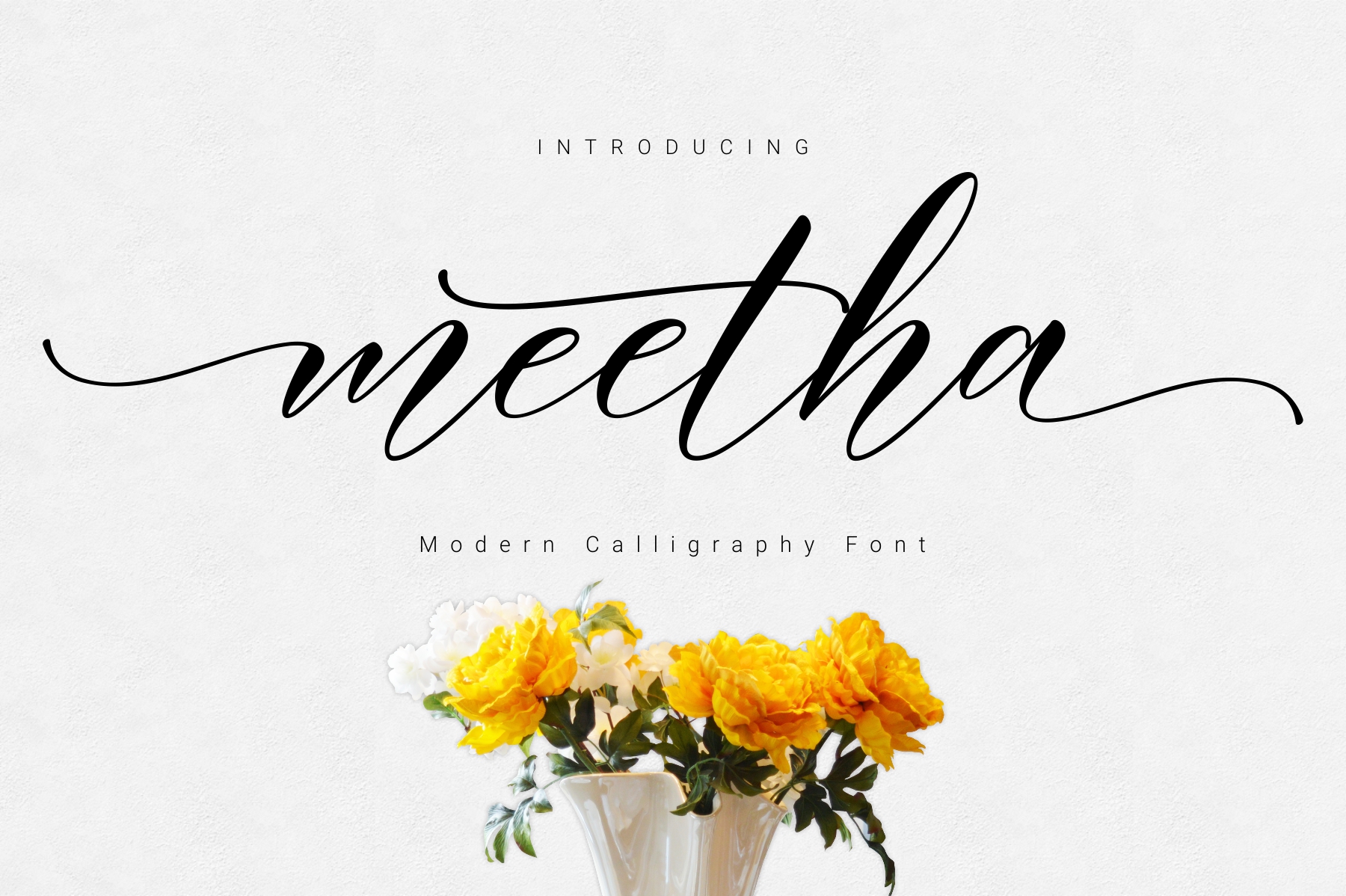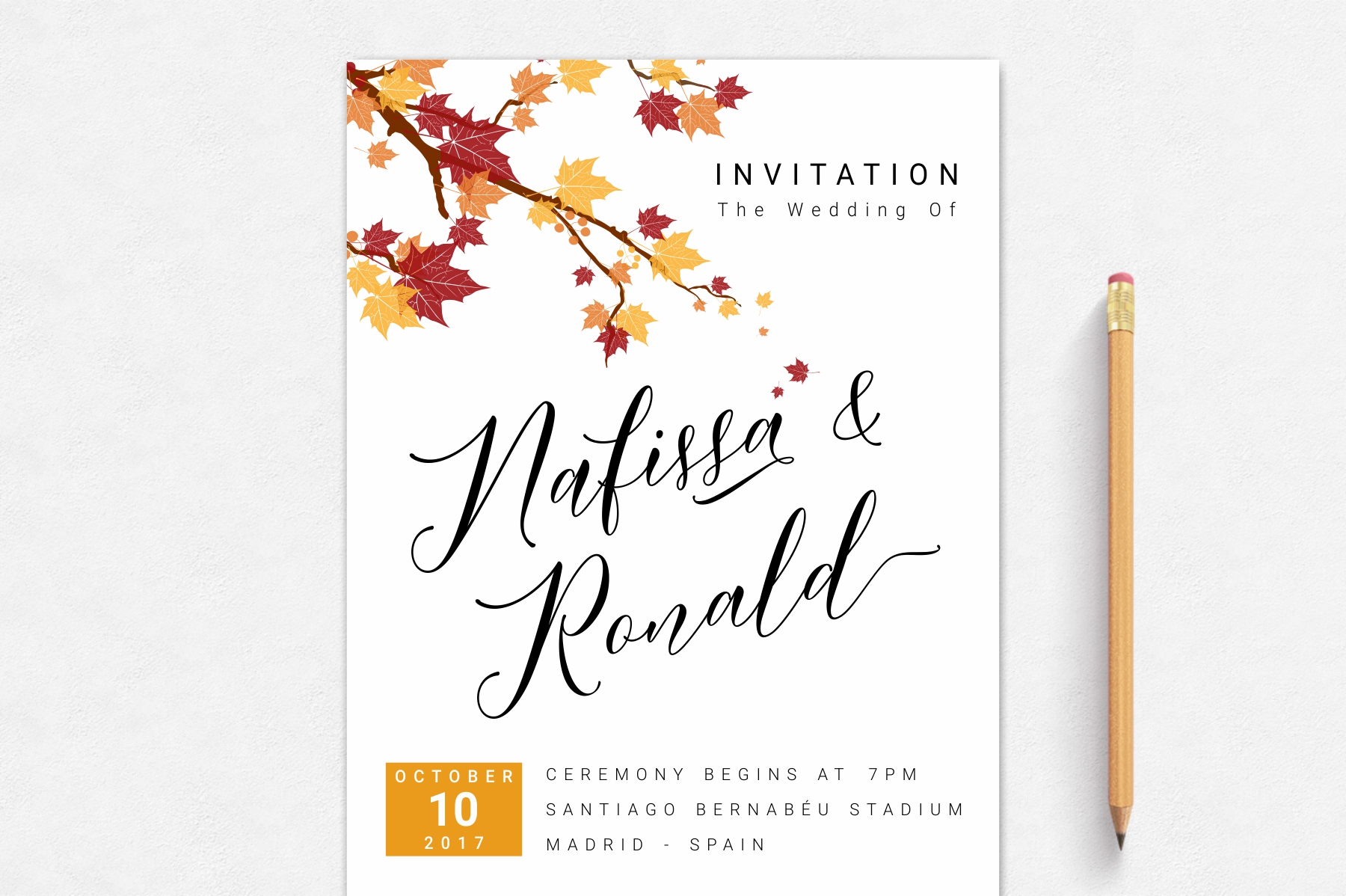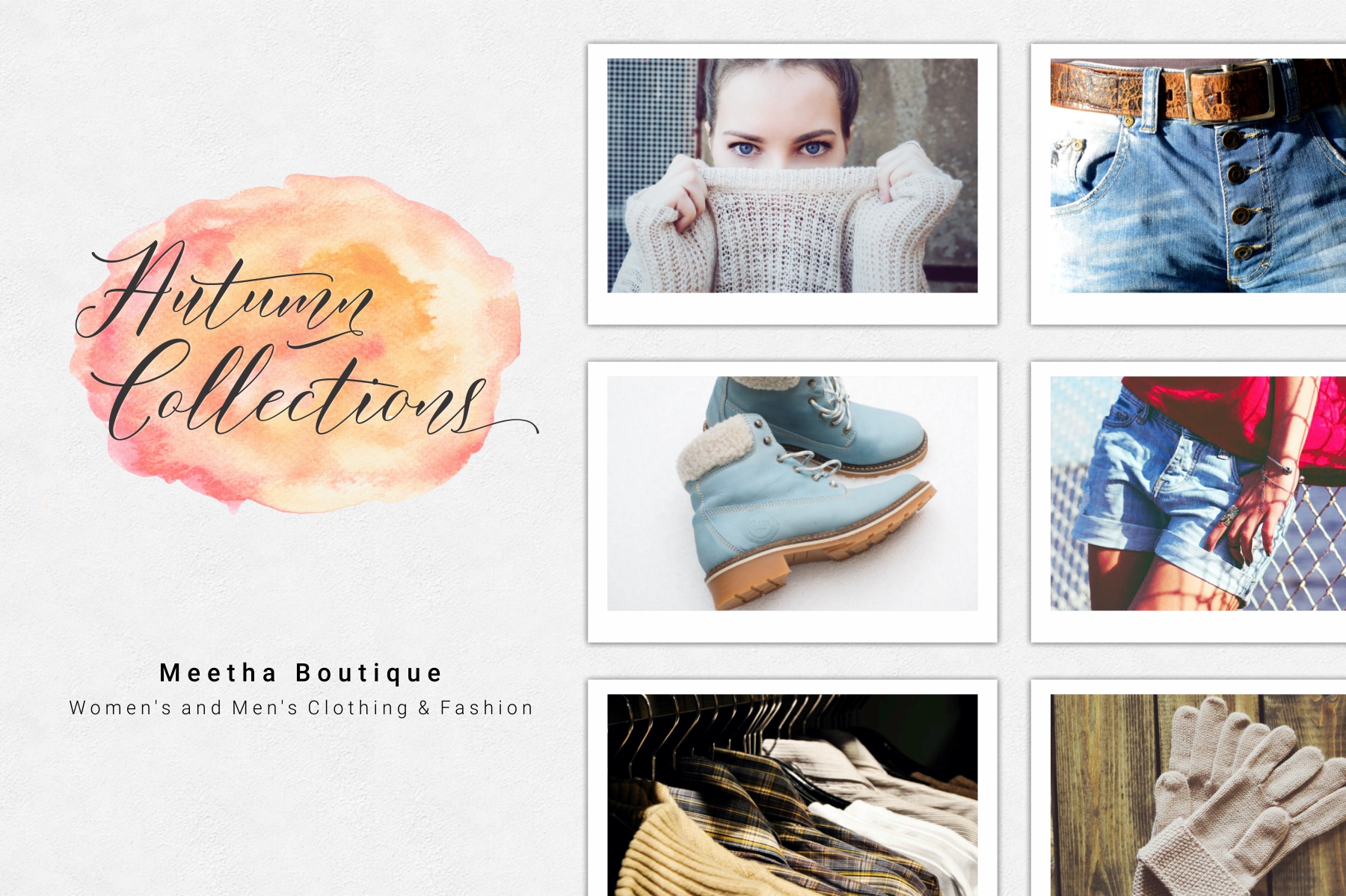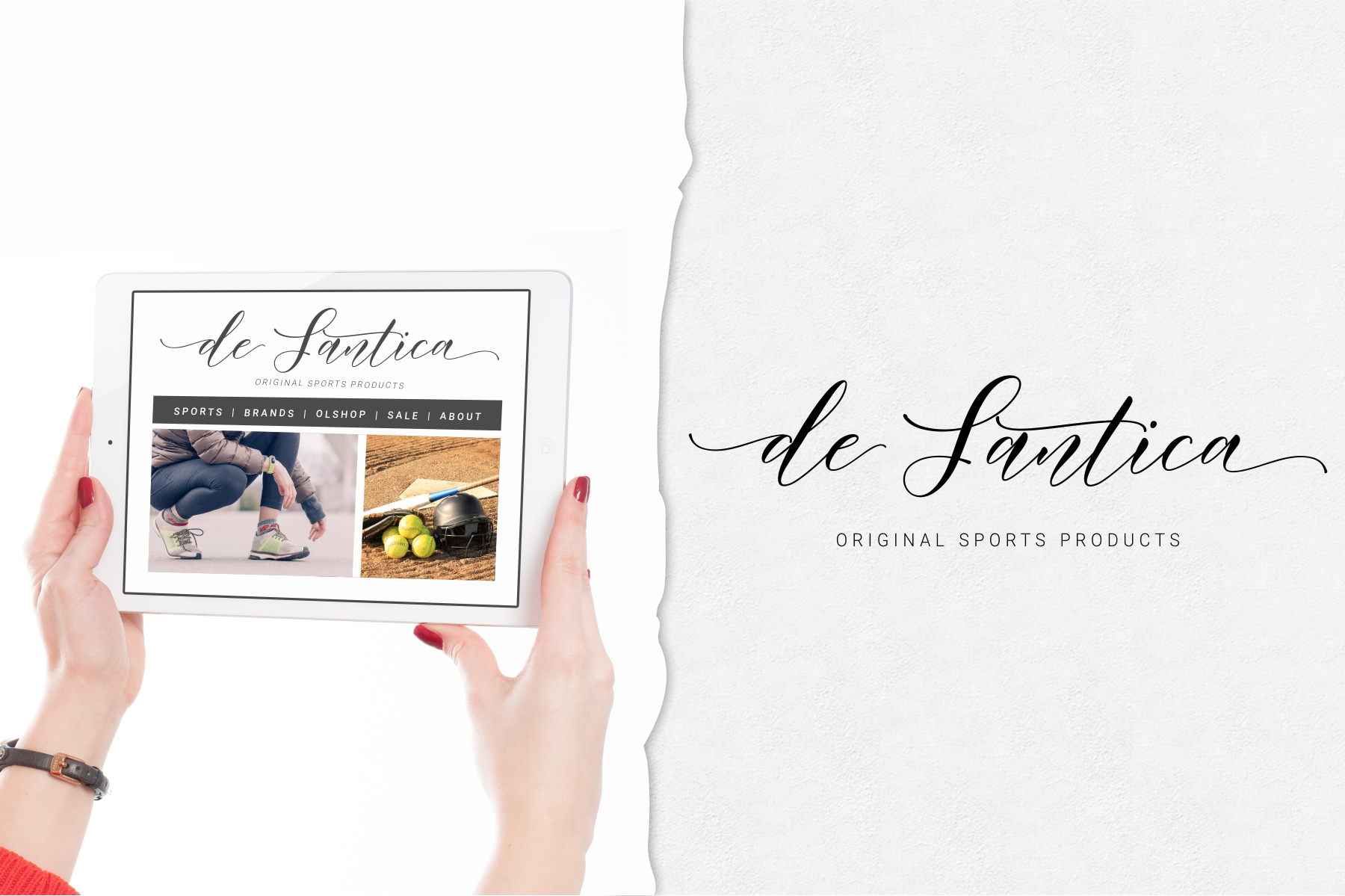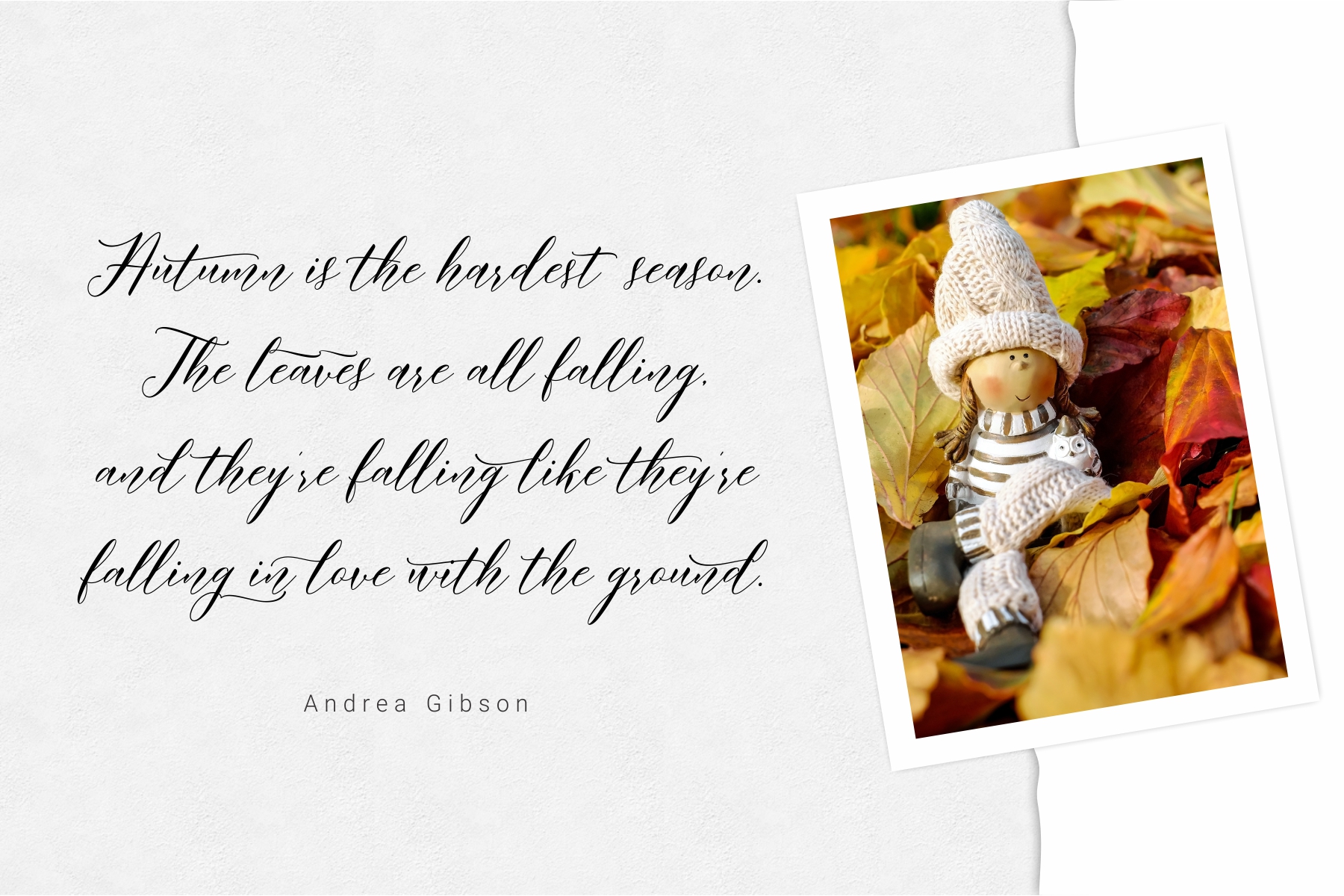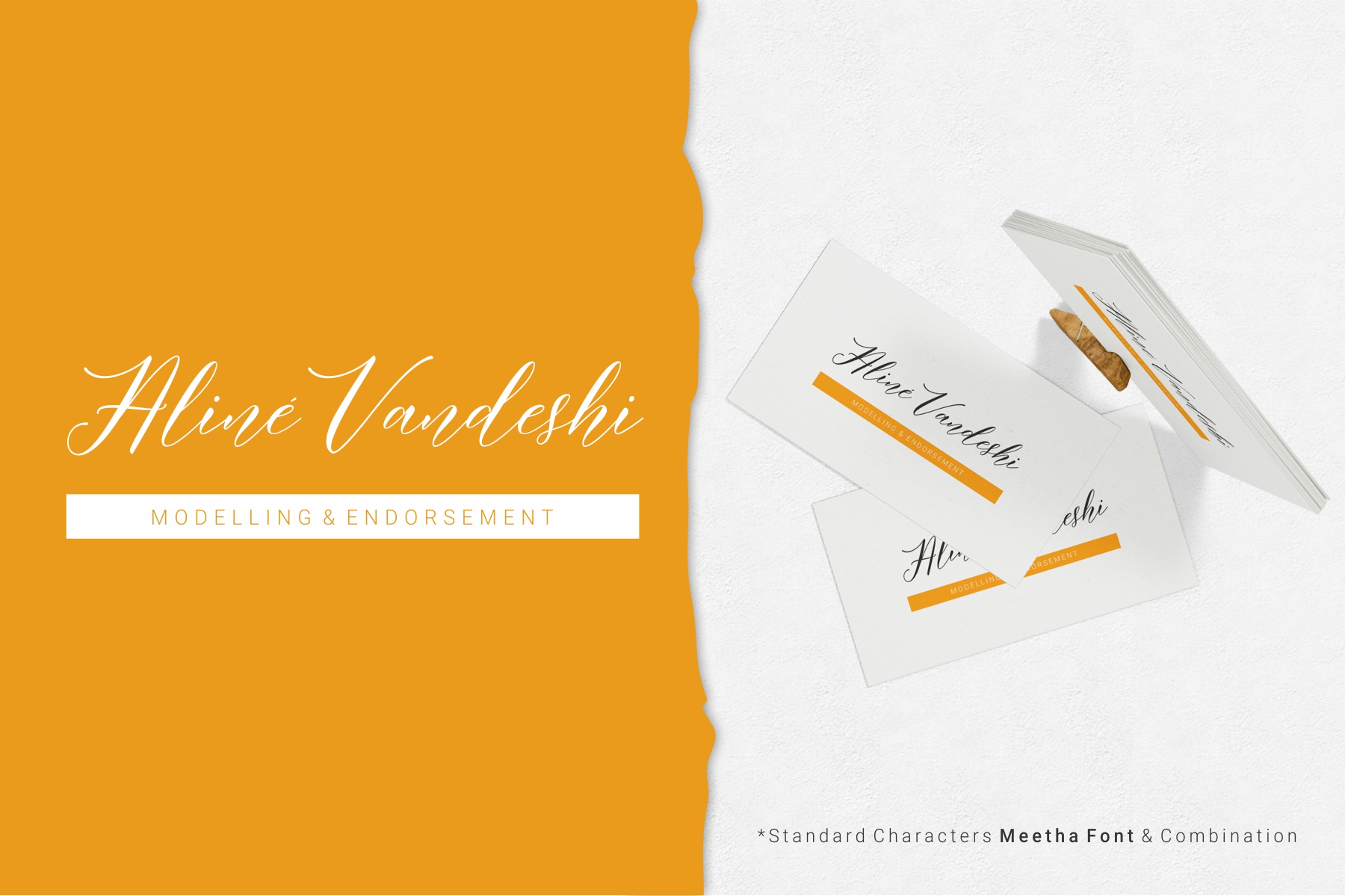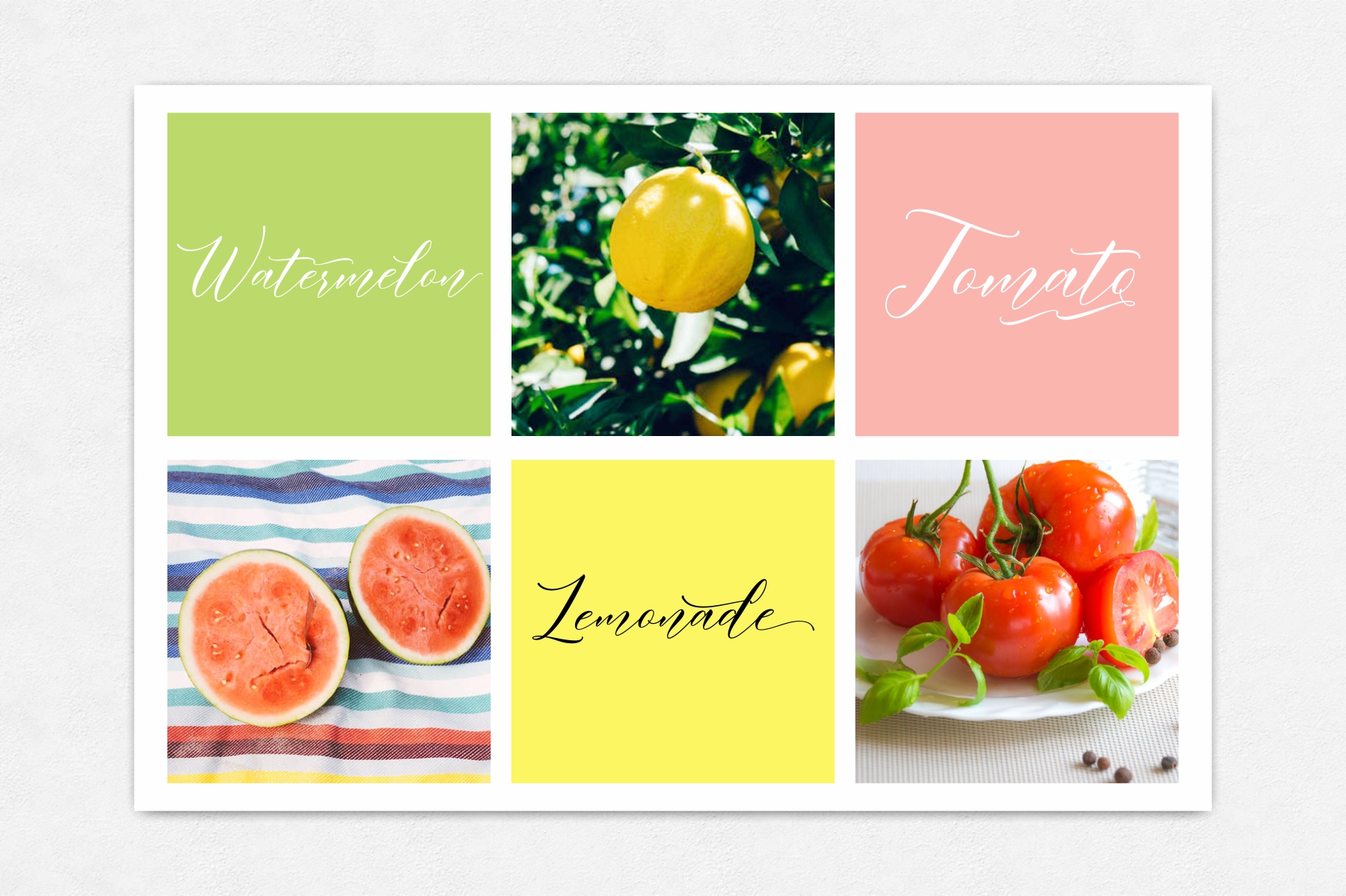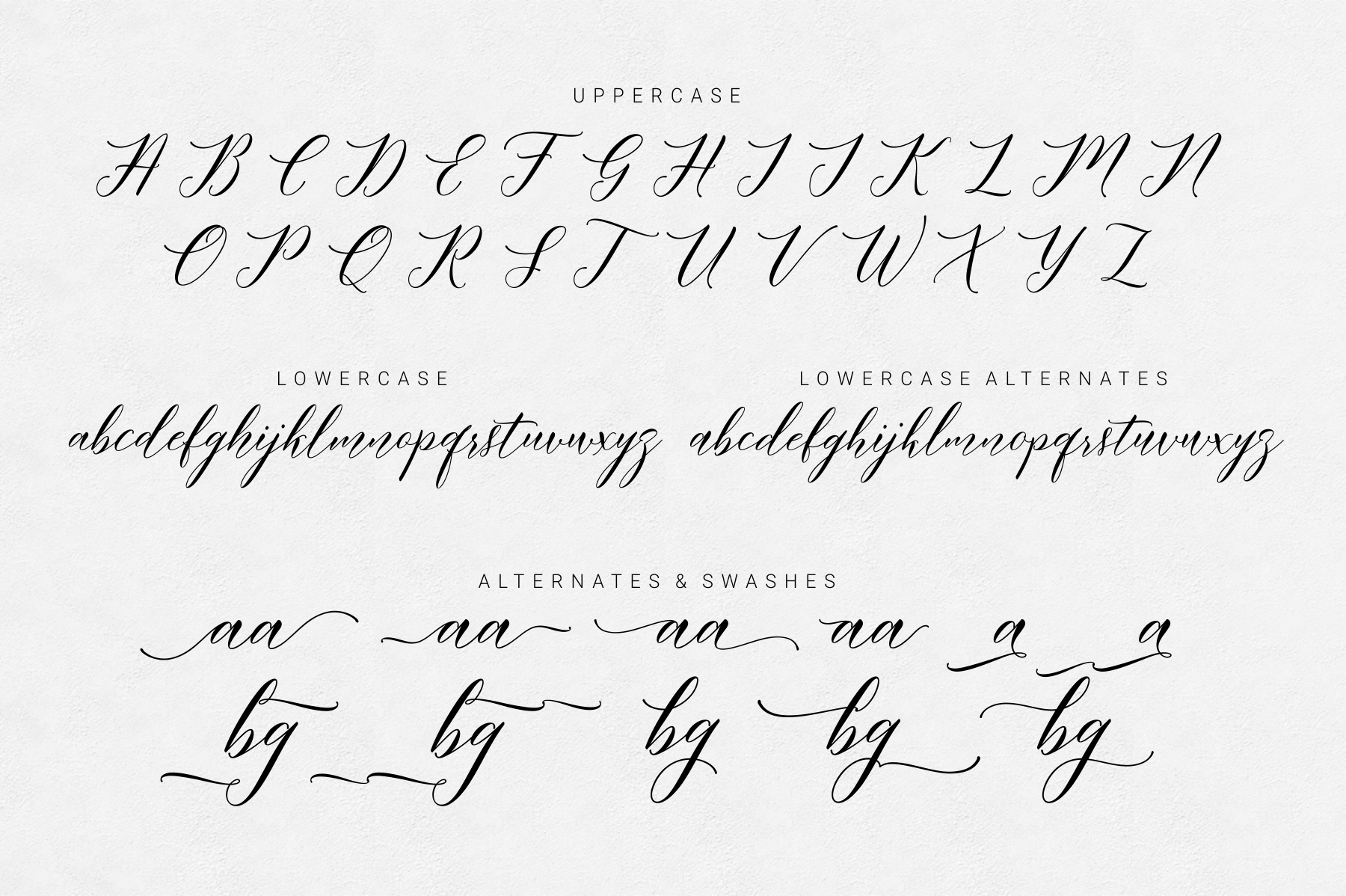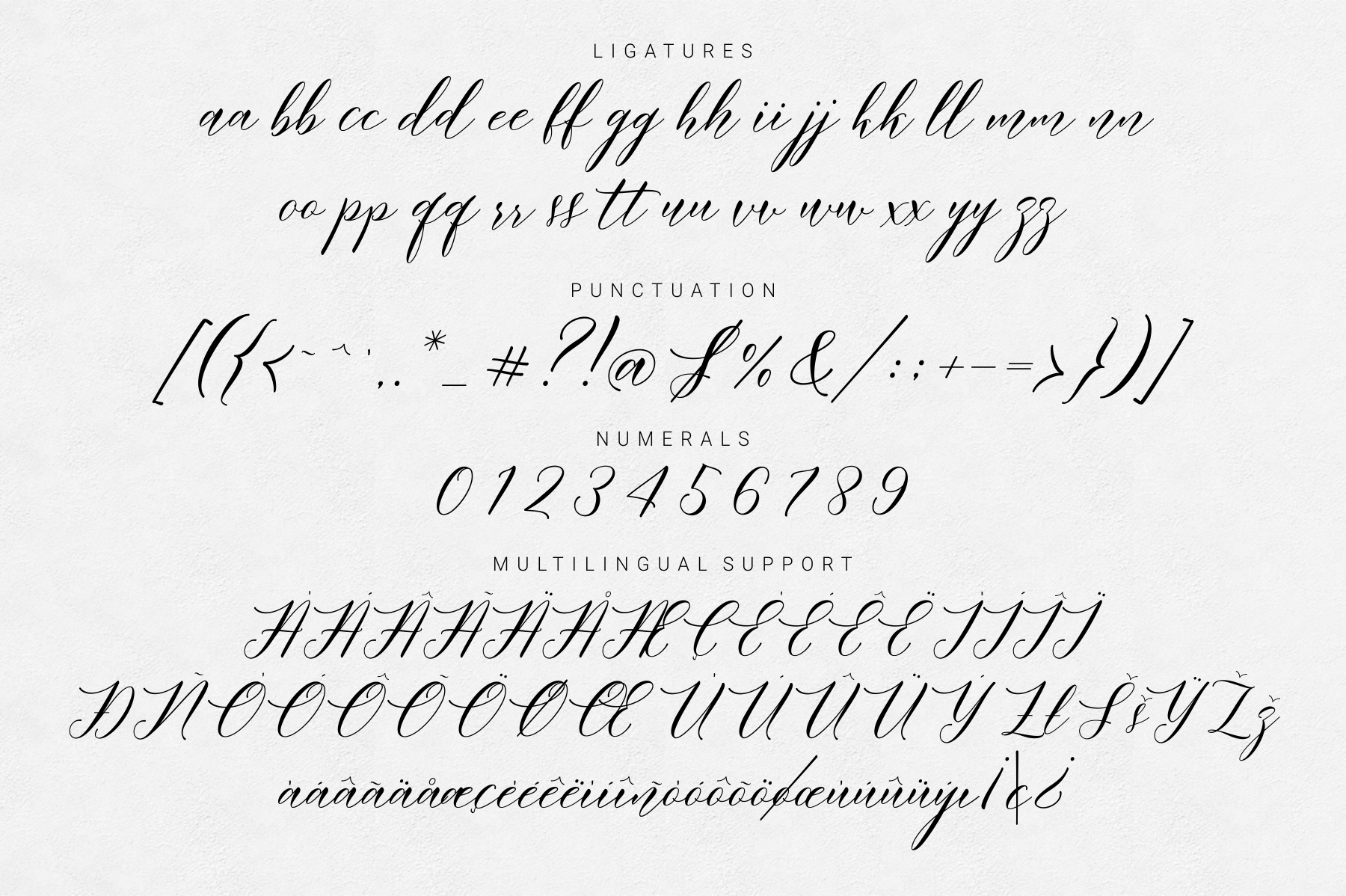
Meetha Font
About Meetha Font
Meetha is a modern calligraphy based script in an italic and dancing style. Made to gently glide across compositions, Meetha is a modern, sweet, stylish and firm font.